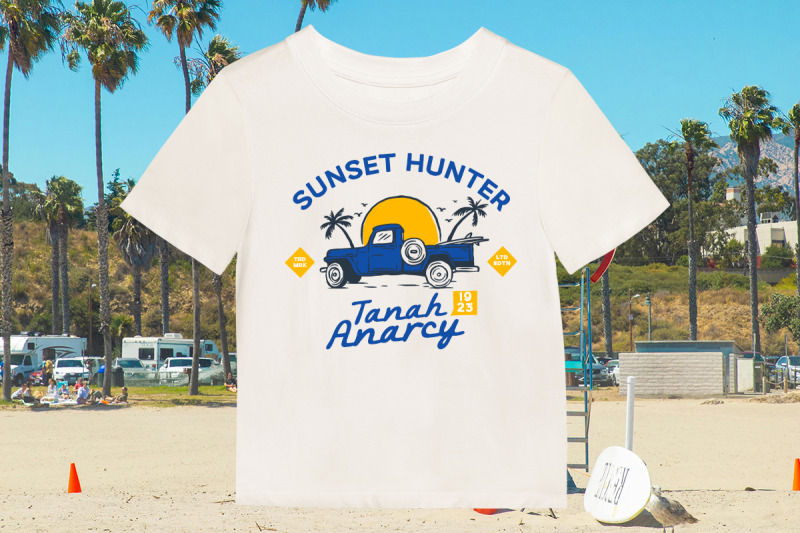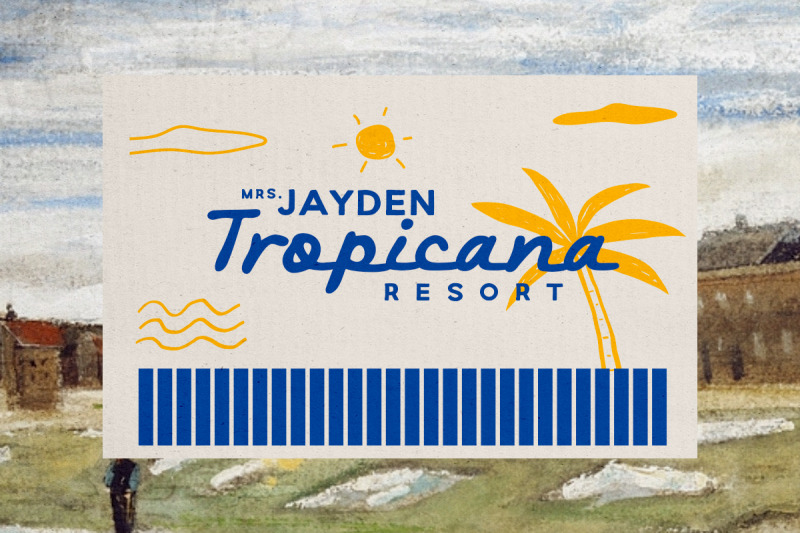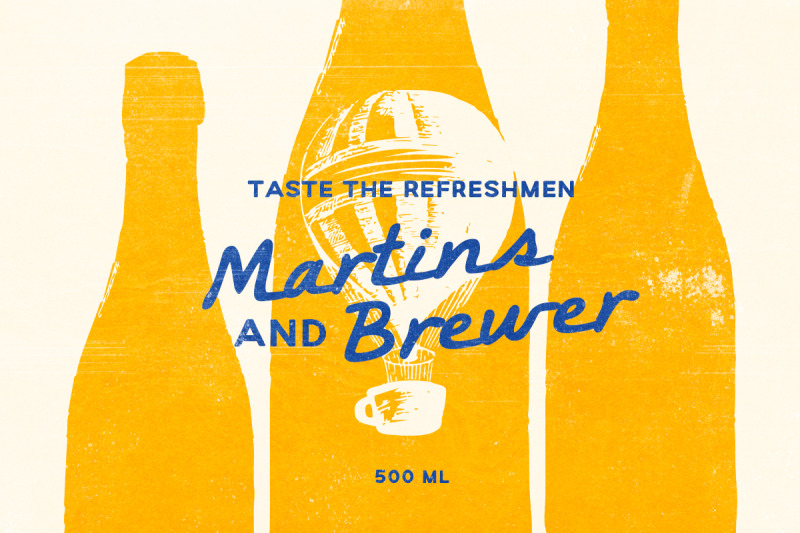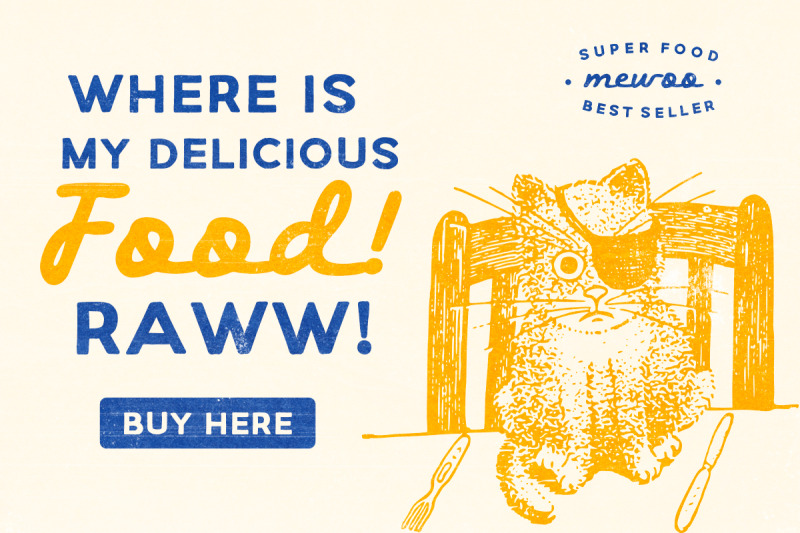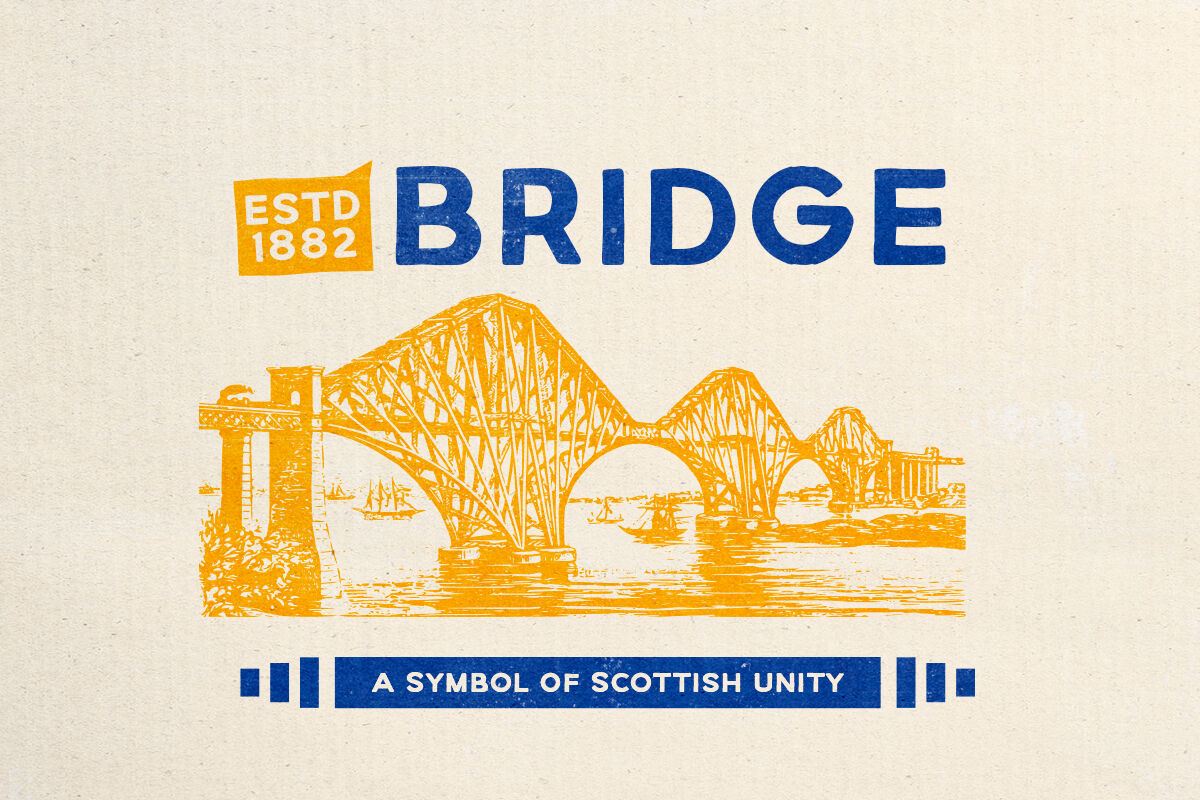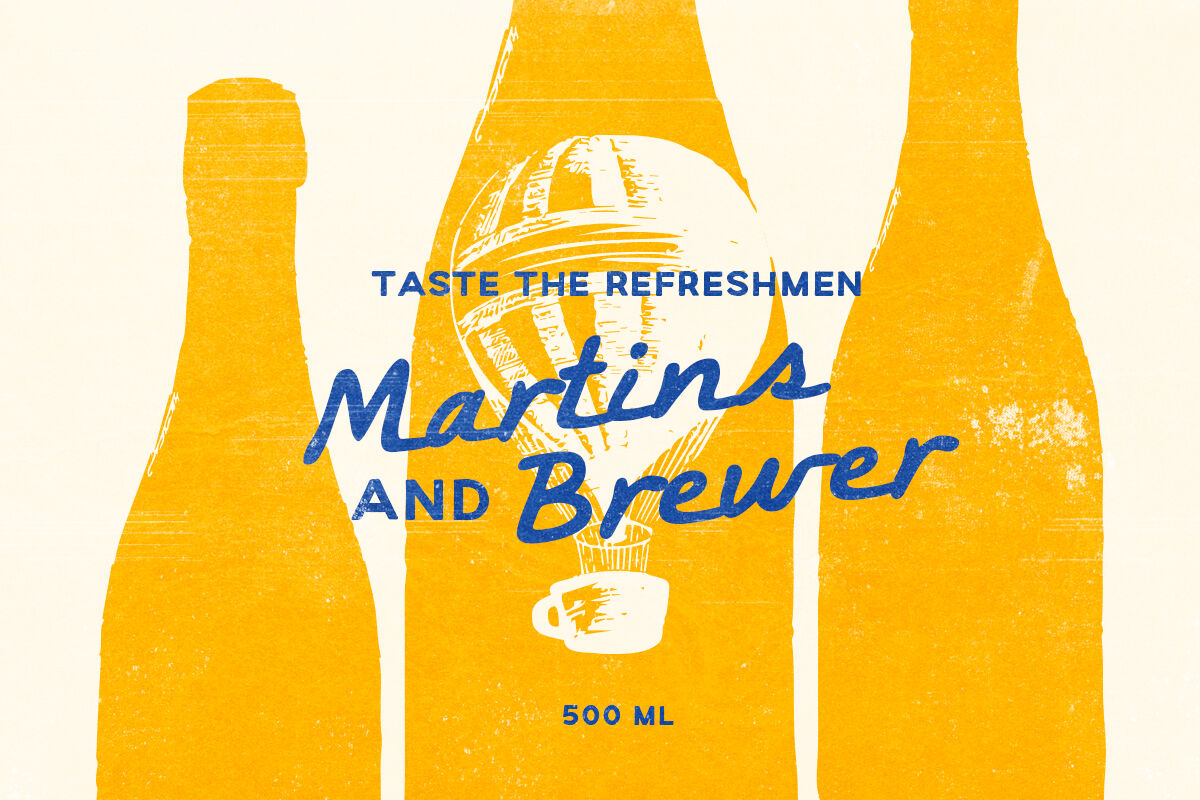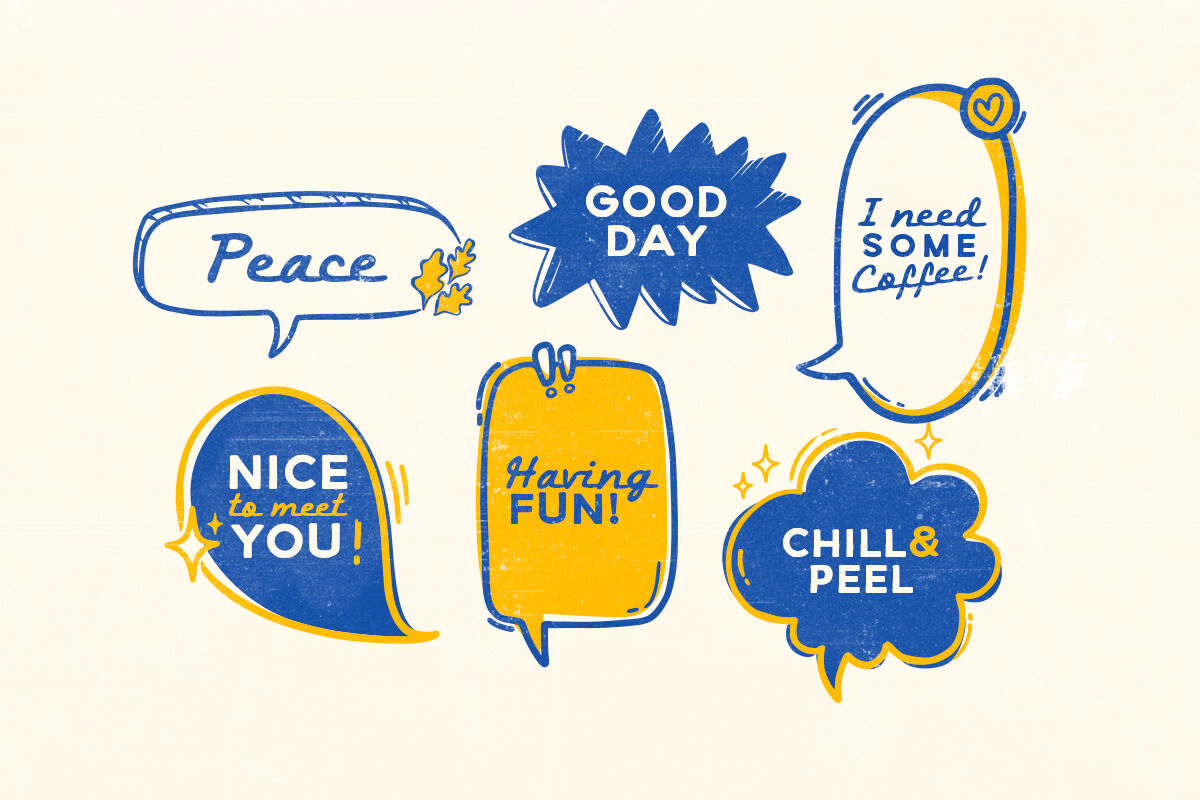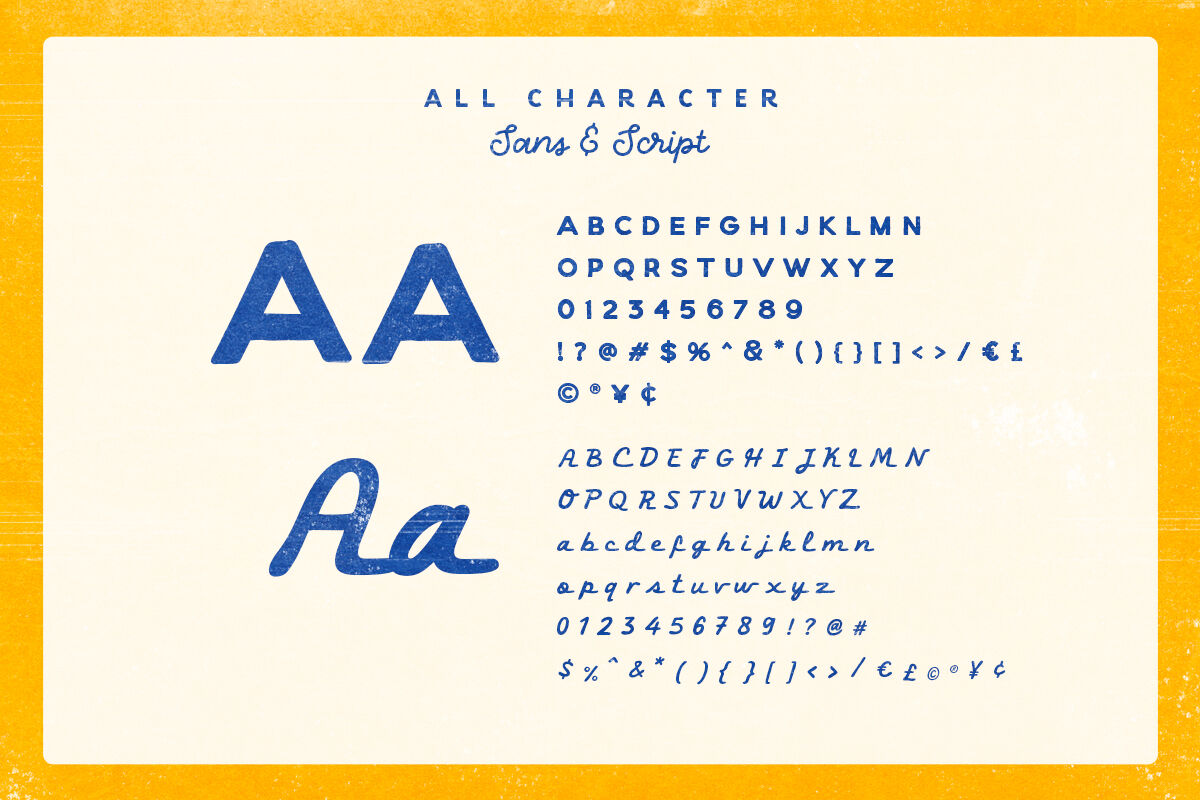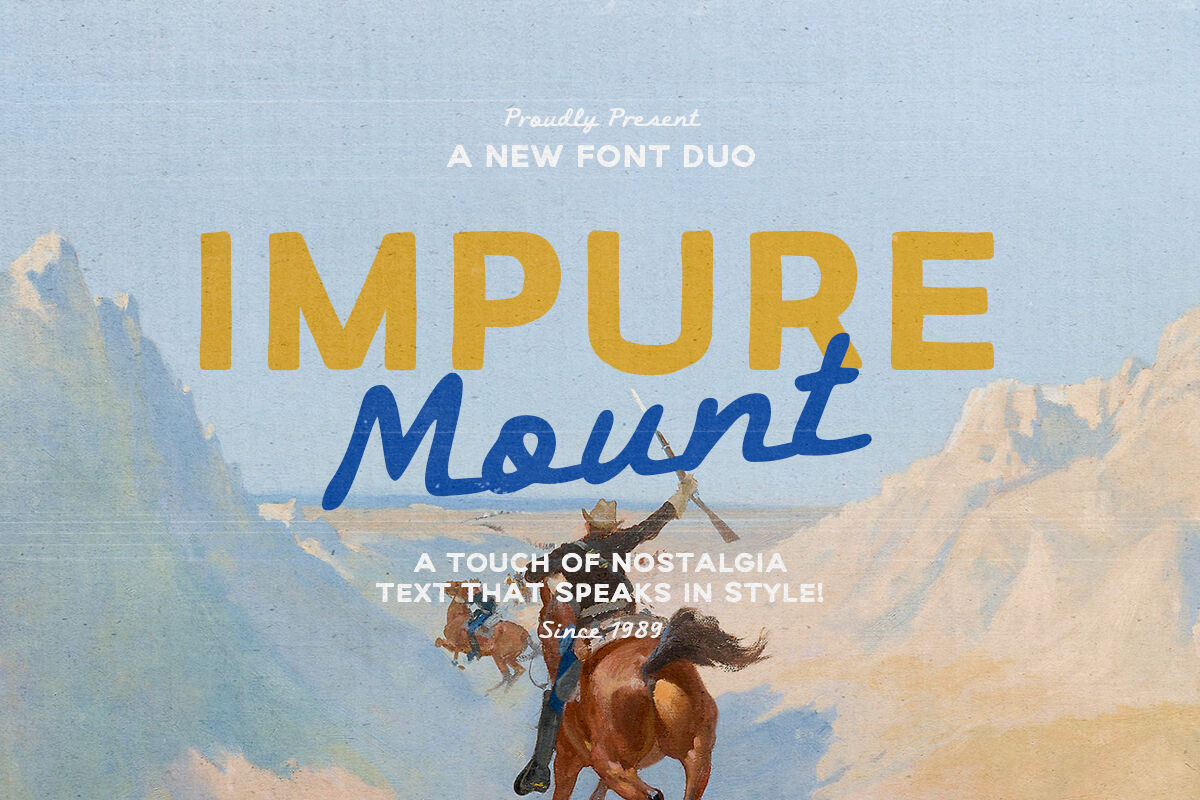
Impure Mount - Nostalgic Font Duo
Impure Mount is a nostalgic font duo that contains simple sans and unique script that made by hand lettering style. You can use this font for any purpose such as poster, book cover, logo, branding and quote as well. This font is suitable for project that have outdoor and adventure themes. Impure Mount also support multi language.
Impure Mount Sans
Impure Mount Script